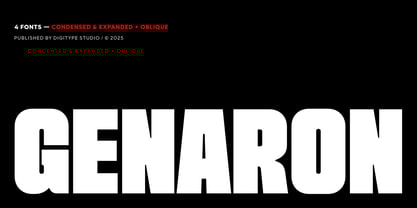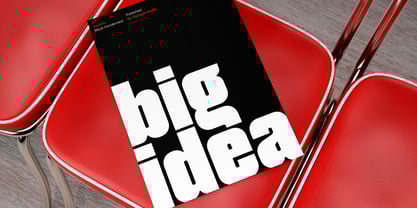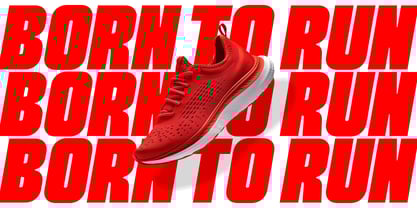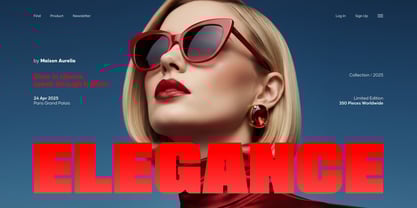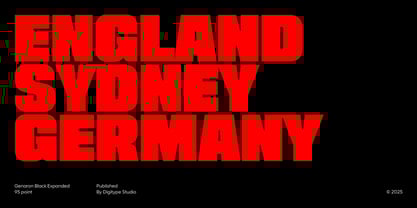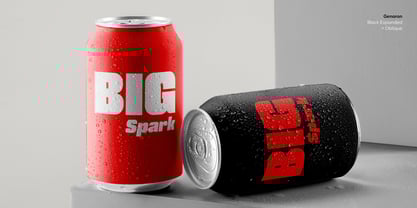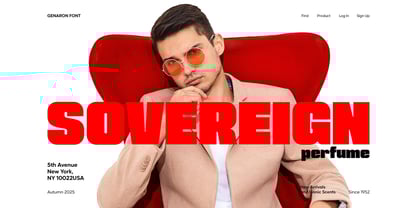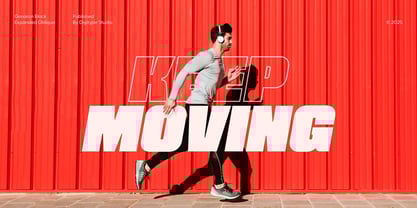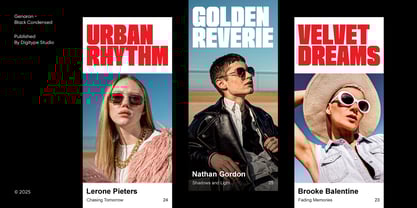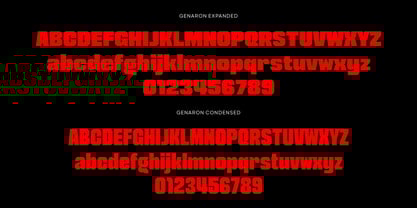
Genaron
by Digitype Studio
The Genaron Font Family was designed by Yusuf Niky Syahroni and published by Digitype Studio. Genaron contains 4 styles and family package options. More about this family
Genaron is a modern font family with a strong, expressive, and confident personality. Designed to deliver an elegant yet powerful impression, Genaron stands out and captures attention in any design project. This family includes 4 styles — Condensed and Expanded, each with its own Oblique version. With this versatility, Genaron is perfect for posters, magazine editorials, fashion branding, product packaging, and digital design, bringing a distinctive character that makes every visual truly unforgettable.
Designers: Yusuf Niky Syahroni
Foundry: Digitype Studio